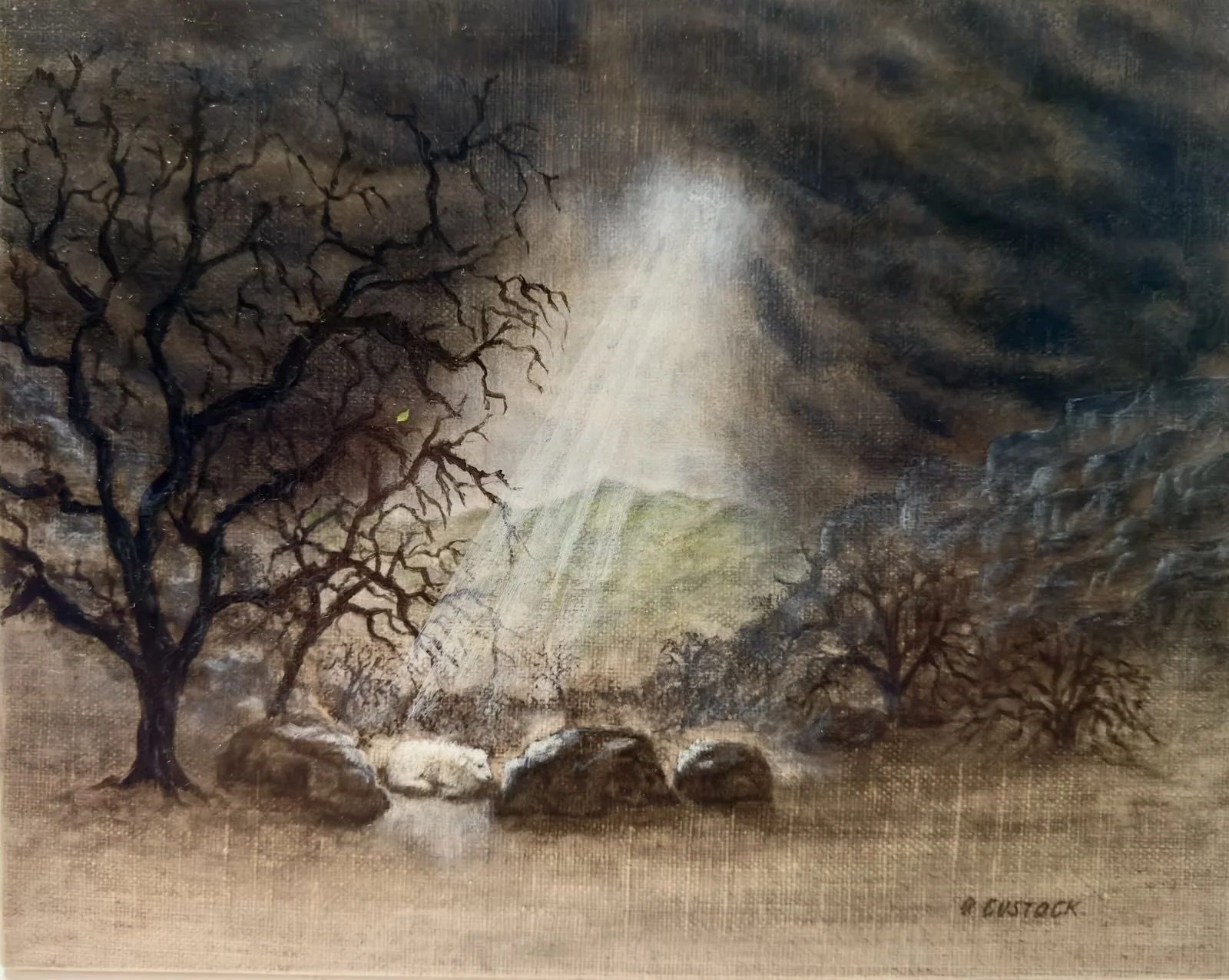
An artist based in USA
Arlene Custock
Arlene has always desired to create beauty since her childhood. In 2015, she began her calligraphy journey and the creative spirit came to life. "It felt like someone had shaken a bottle of champagne and popped the cork. I attended every single workshop I could attend and spent every spare minute writing. Calligraphy and art have become a huge part of my life. The creative part of me sprang to life as a result of this," she shared.
An active member of multiple calligraphy guilds and IAMPETH, Arlene has not encountered a script she did not enjoy studying! Arlene credits her greatest calligraphic influence to her years of study under Michael Sull, whose kindness and passion for the Spencerian script have marked her indelibly. Many other calligraphy teachers and friends have impacted her calligraphy journey, such as Nina Tran (@anintran).
Calligraphy and art blended together when Arlene began making birthday cards for friends, family, and her employees. She also creates certificates for her employees each year in recognition of their contributions.
Through The Art of Letters’ mentorship initiative, Arlene has grown as an artist, with a special interest in painting landscapes and clouds. Arlene enjoys watercolour and acrylic painting.
TITLE | Still Waters
Drawing from the opening verses of Psalm 23, this piece visualizes tranquility and restoration: “The Lord is my shepherd; I shall not want. He makes me lie down in green pastures; He leads me beside still waters. He restores my soul.” Calm hues and gentle movement evoke peace and spiritual renewal.